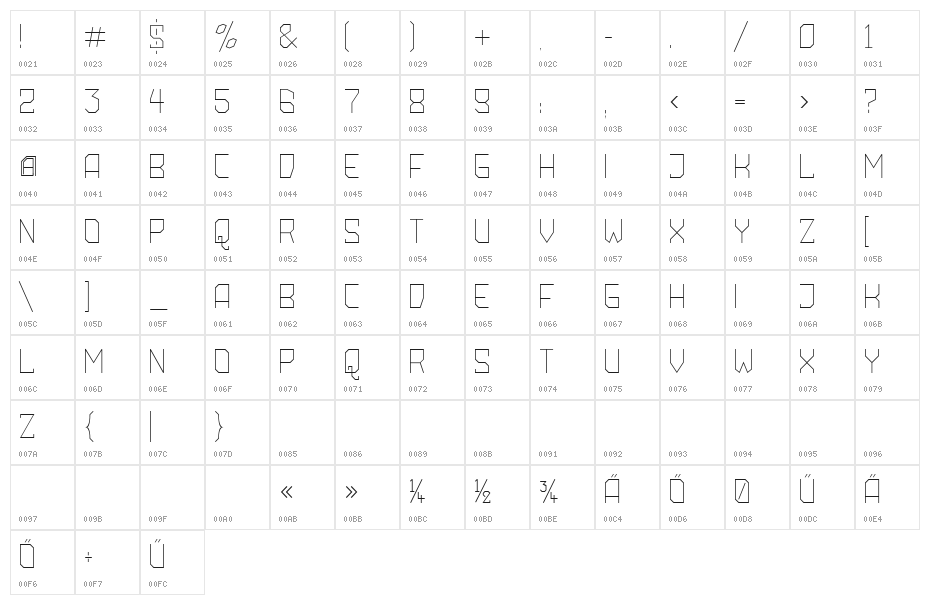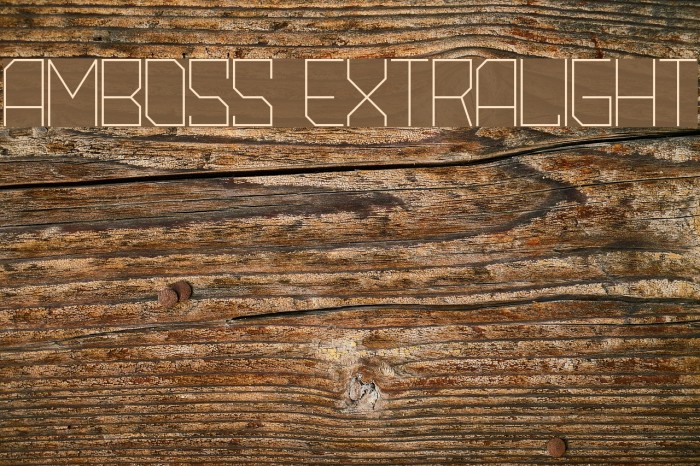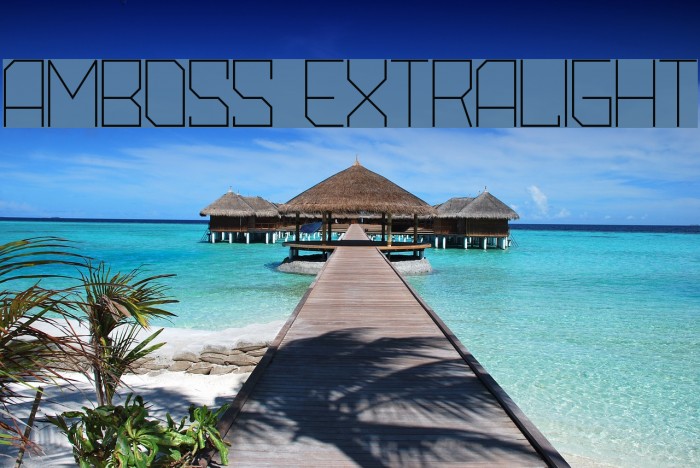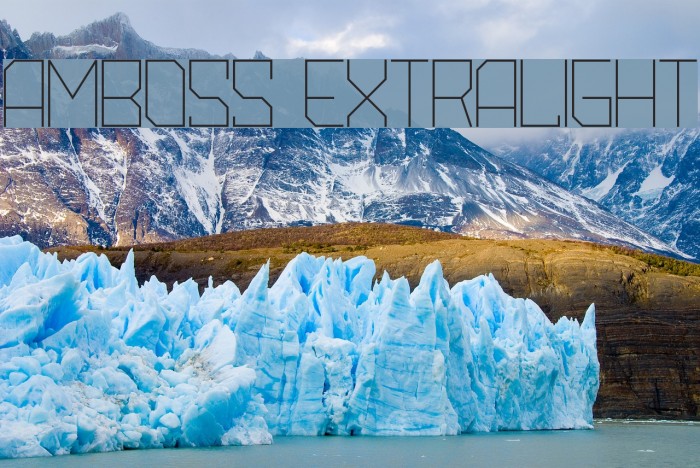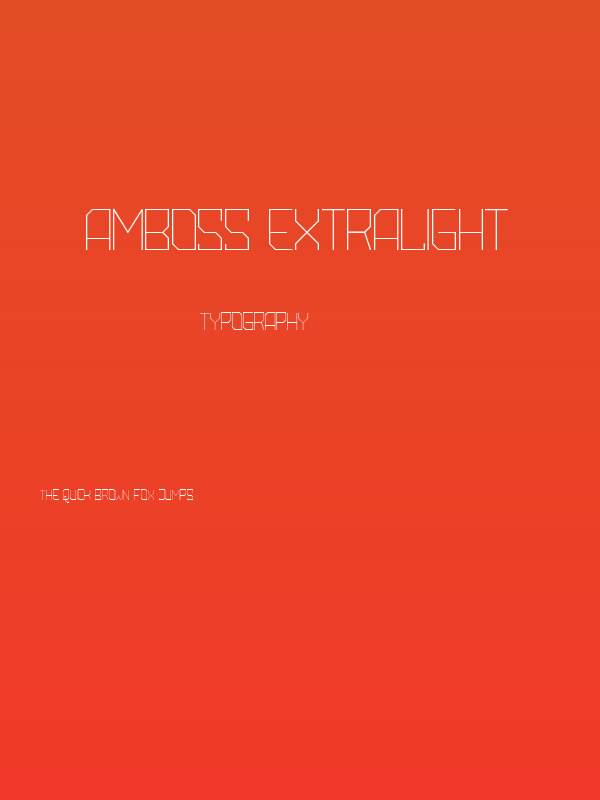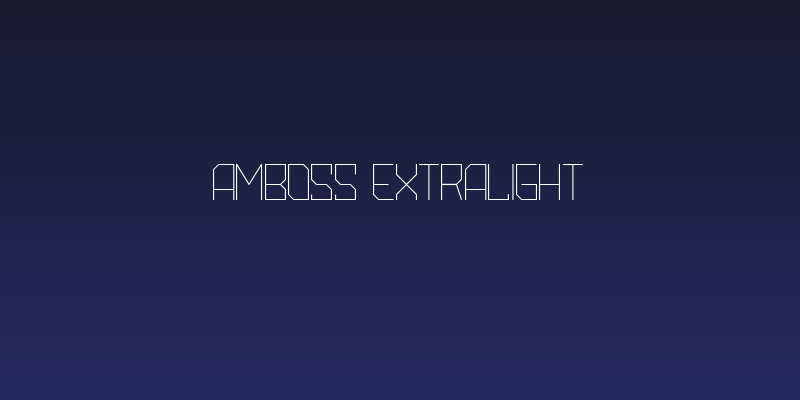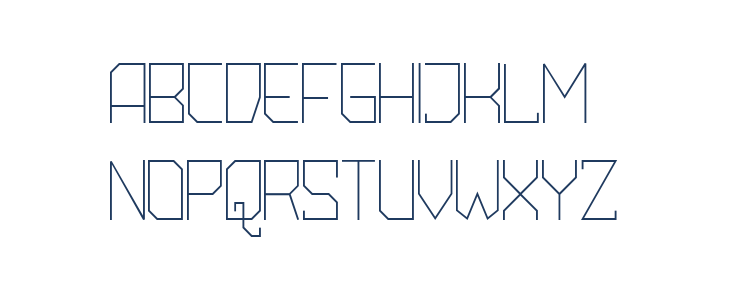
Amboss ExtraLight Font
Amboss ExtraLight Description
This font features a geometric and angular design, characterized by its sharp, straight lines and distinct corners. The letters are constructed with a consistent stroke width, giving it a uniform appearance. The uppercase and lowercase letters maintain a similar style, with the lowercase being slightly smaller in size. Numbers and special characters follow the same geometric pattern, ensuring a cohesive look across all characters. The font's unique structure makes it stand out, offering a modern and futuristic aesthetic. Its clean lines and minimalistic design make it suitable for projects that require a contemporary and edgy feel.
Proposed ProjectsIdeal for tech branding, modern posters, futuristic designs, and digital interfaces.